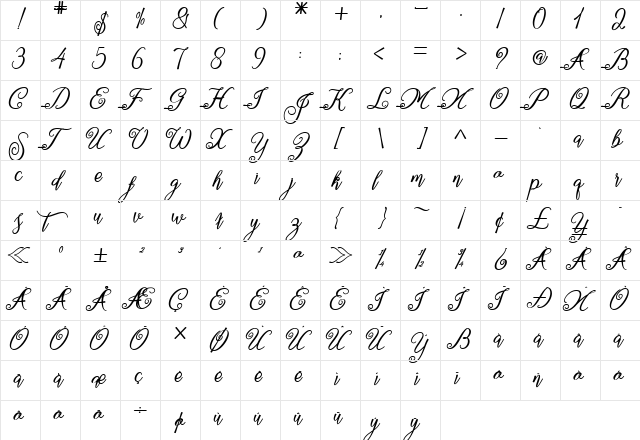
marganbetan Regular
| Foundry | Aquilera |
| Designer | Aquilera Saiman |
Design Context for marganbetan Typeface
marganbetan is a composed and adaptable typeface that performs quietly and consistently across a wide range of design contexts.